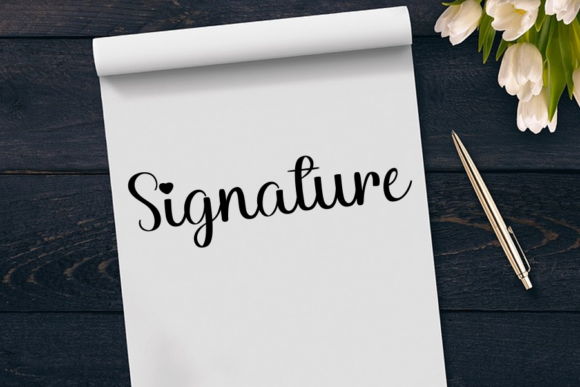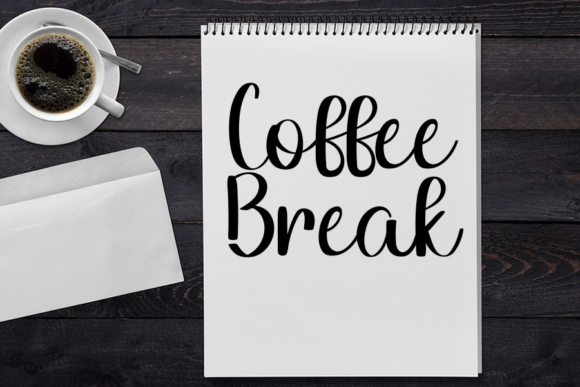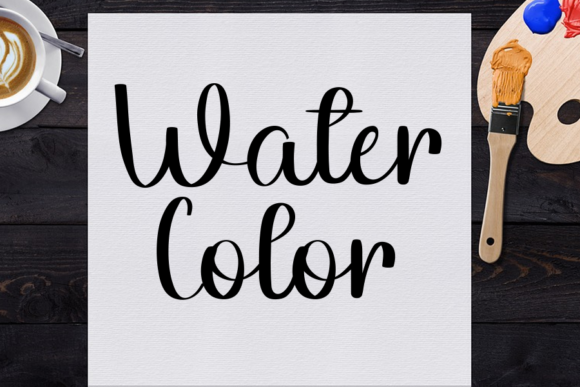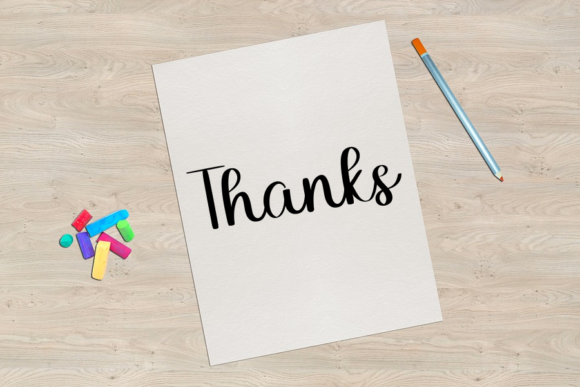
Summer Mandala Font
About Summer Mandala Font
Summer Mandala is a cute and simple handwritten font. No matter the topic, this font will be an incredible asset to your fonts’ library, as it has the potential to elevate any creation.